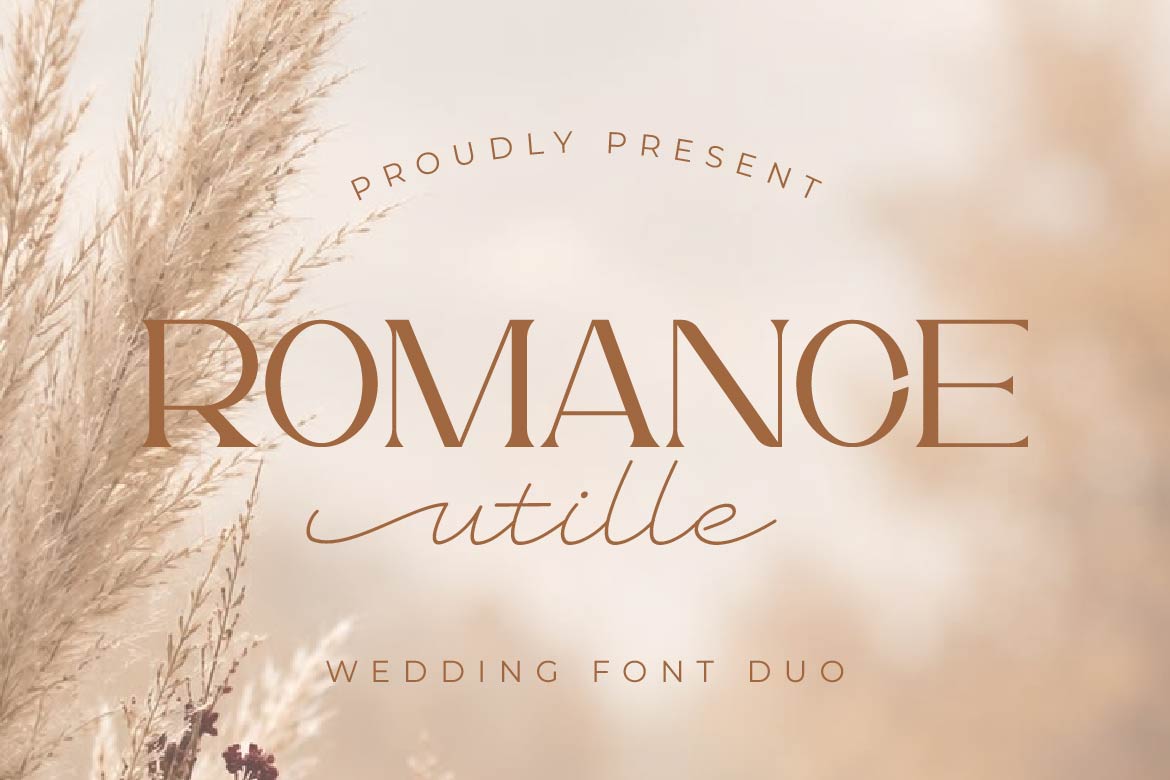
- Romance Utille – Wedding Font Duo
Romance Utille is an elegant wedding font duo pairing a refined serif with a delicate, flowing script. The serif carries clean, classic proportions with subtle vintage character, while the script brings a soft, handwritten touch — together creating a timeless, romantic pairing built for special occasions.
The serif works beautifully for names, titles, and structured text where clarity and elegance matter, while the script adds a graceful, intimate finishing touch to accompanying details. Both styles are designed to complement each other in weight and rhythm, so they read as a cohesive set rather than two unrelated fonts forced together.
Romance Utille is perfectly suited for wedding invitations, save-the-dates, program cards, thank-you notes, and any stationery that calls for an elegant, sentimental tone. Beyond weddings, this pairing also works beautifully for boutique branding, feminine logos, editorial titles, and lifestyle content that wants a soft, sophisticated voice.
Timeless, elegant, and effortlessly romantic — Romance Utille brings warmth and sophistication to every detail of your design.
Romance Utille — an elegant serif and script duo made for love stories and refined design.